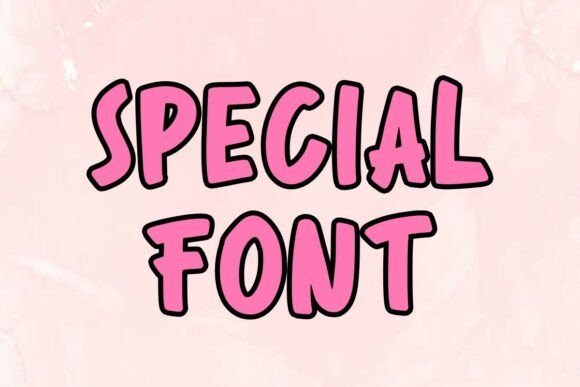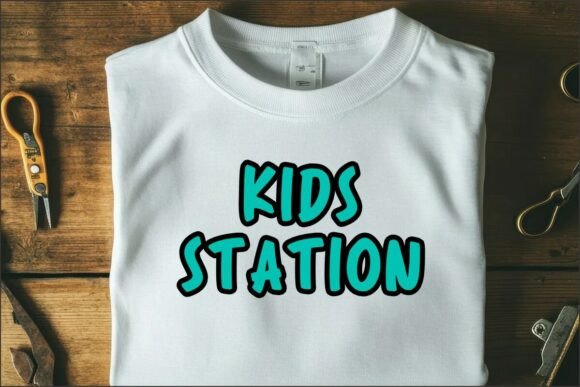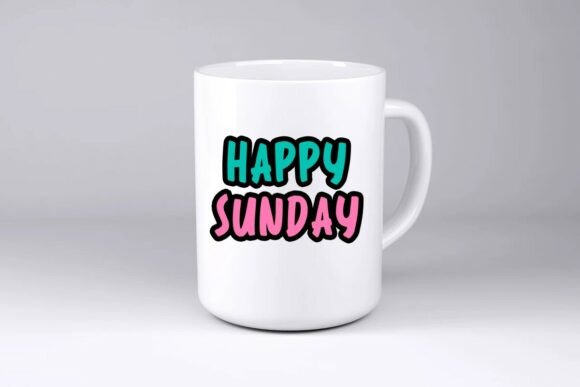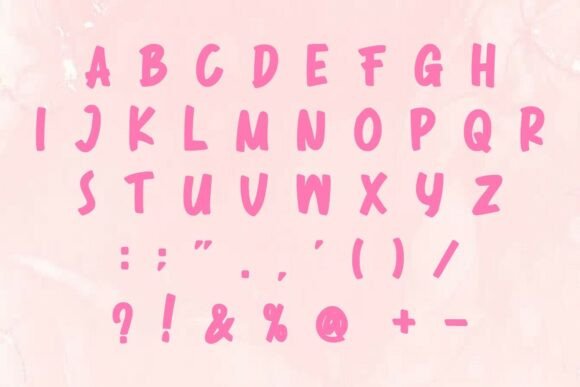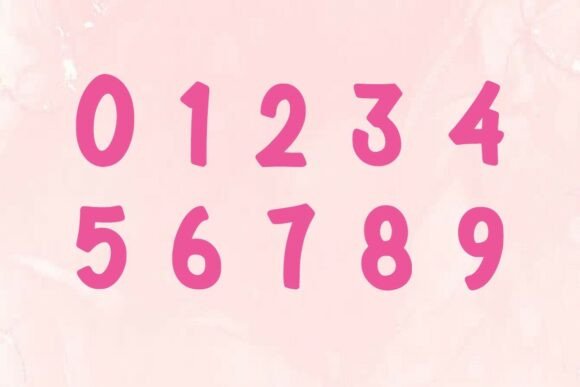
Bird Lovers Font: The Perfect Choice for Your Creative Projects
Are you a designer or crafter looking for a font that can add a touch of warmth and friendliness to your creations? Look no further than Bird Lovers Font! This adorable font is perfect for anyone who wants to create fun, playful, and engaging designs that appeal to kids and adults alike.
What is Bird Lovers Font?
Bird Lovers Font is a cute, simple, and friendly kids font that is designed to bring a relaxed and casual vibe to your designs. Its informal style makes it perfect for creating products that require a personal touch, such as product packaging, invitations, quotes, t-shirts, labels, posters, and logos.
Key Features of Bird Lovers Font
- Cute and Playful Design: Bird Lovers Font features a playful and adorable design that is sure to capture the attention of your audience.
- Informal Style: The font’s informal style makes it perfect for creating designs that require a relaxed and casual touch.
- Easy to Read: The font is easy to read, making it perfect for body text and headlines.
- Versatile: Bird Lovers Font is suitable for a wide range of design projects, from product packaging to posters and logos.
Why Choose Bird Lovers Font?
There are many reasons why Bird Lovers Font is a great choice for designers and crafters. Here are a few:
- Unique and Eye-Catching: The font’s unique and eye-catching design makes it perfect for creating designs that stand out from the crowd.
- Perfect for Kids’ Designs: The font’s playful and adorable design makes it perfect for creating designs for kids, such as children’s books, toys, and games.
- Easy to Pair with Other Fonts: Bird Lovers Font is easy to pair with other fonts, making it perfect for creating designs that require a combination of fonts.
Design Ideas Using Bird Lovers Font
Bird Lovers Font is a versatile font that can be used for a wide range of design projects. Here are a few ideas to get you started:
- Product Packaging: Use Bird Lovers Font to create fun and playful packaging for kids’ products, such as toys, games, and treats.
- Invitations: Create adorable invitations for kids’ parties, events, and activities using Bird Lovers Font.
- Quotes and Posters: Use Bird Lovers Font to create inspiring quotes and posters that feature fun and playful designs.
- T-Shirts and Apparel: Create fun and playful t-shirts and apparel for kids using Bird Lovers Font.
- Logos and Branding: Use Bird Lovers Font to create logos and branding for kids’ products and services.
Tips for Using Bird Lovers Font
Here are a few tips for using Bird Lovers Font:
- Use it with Bright Colors: Bird Lovers Font looks great with bright and bold colors, so don’t be afraid to experiment with different color combinations.
- Pair it with Other Fonts: Bird Lovers Font is easy to pair with other fonts, so try pairing it with serif or sans-serif fonts for a unique look.
- Experiment with Different Sizes: Bird Lovers Font looks great in different sizes, so experiment with different font sizes to create visual interest.
Bird Lovers Font is a versatile and adorable font that is perfect for designers and crafters who want to create fun and playful designs. Its informal style and casual vibe make it perfect for creating products that require a relaxed touch. With its cute and playful design, Bird Lovers Font is sure to capture the attention of your audience and add a touch of warmth and friendliness to your creations.